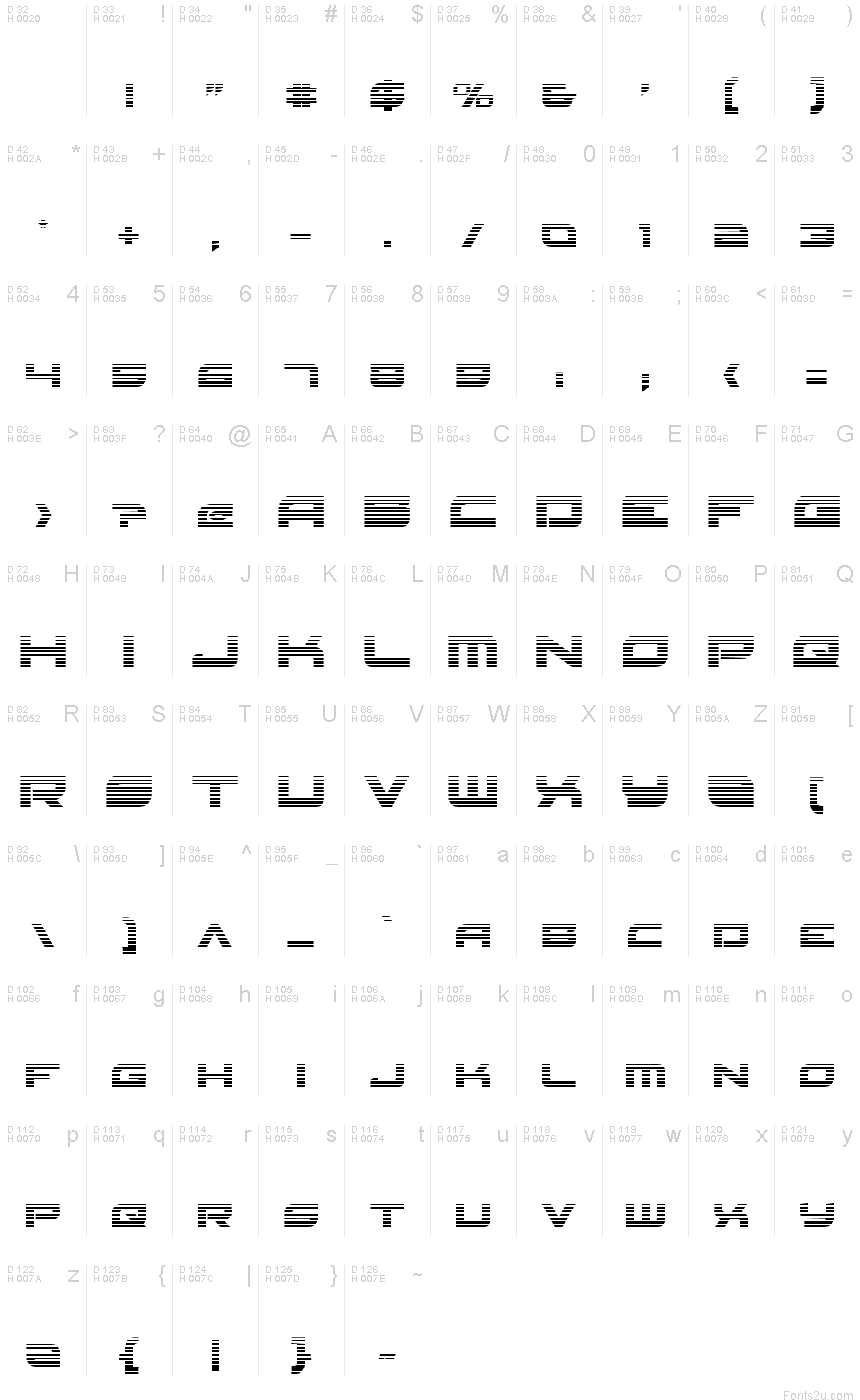
Red Rocket Gradient by Daniel Zadorozny of Iconian Fonts is a free techno display font with wide, imposing proportions. Repeated horizontal stripes give the letters a fast, mechanical texture. Sharp cutaways keep the silhouette crisp.
Futuristic event posters are its strongest setting, especially when the lettering becomes part of the main graphic. The same striped treatment suits electronic album covers, arcade game graphics, and motorsport merchandise. Its speed-line motif can echo racing photography, spacecraft illustrations, or glowing interface patterns.
Red Rocket Gradient